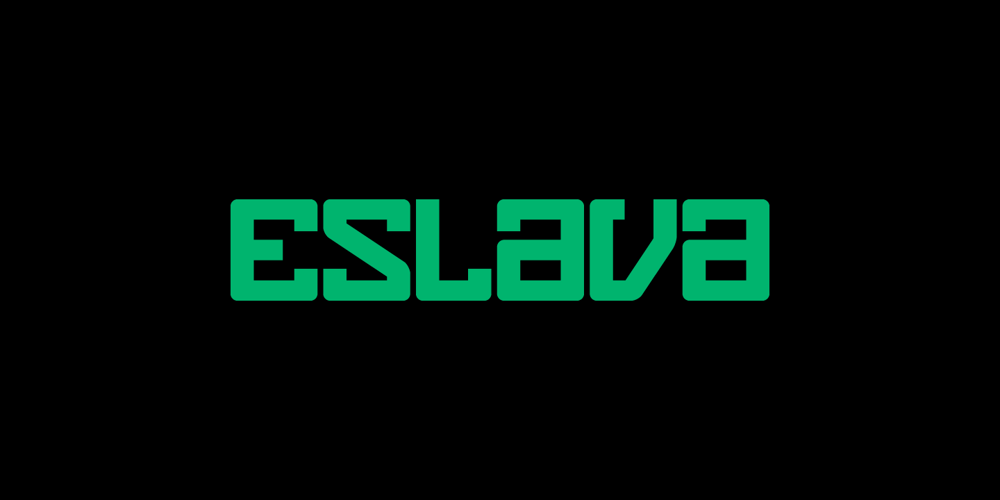
Eslava
Eslava font
Eslava Font Family was designed by Pablo Balcells and published by Graviton. Eslava contains 6 styles and family package options. Eslava font family has been designed for Graviton Font Foundry by Pablo Balcells in 2012. It is a display typeface with a geometric angular look. Eslava consists of 6 styles.